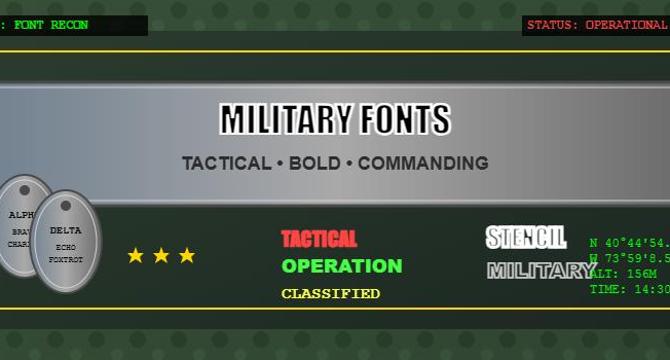
Military fonts are inspired by stenciled letters on military vehicles, offering a rugged and commanding aesthetic for branding and design projects.These fonts reflect utility, durability, and a sense of order, making them ideal for projects that require strength and reliability.Popular military font styles include classic stenciled looks, block letters, and distressed effects for a vintage feel.Fonts like "Military Poster" and "Stamped" convey discipline and authenticity with bold and worn appearance cues."D Day Stencil" and "Army Stamp" recreate historic military markings, while "Capture Smallz" maximizes impact in minimal space.Fonts like "Bronx Bystreets" and "Punishment" convey toughness and authority, with a streetwise and commanding presence."Wargate" and "Panfleta Stencil" evoke military strategy and grassroots movements, each with a distinct purpose and feel."Damage Inc" and "Grenade Stencil" suggest controlled destruction and explosive power, adding impact to designs."Hand Printing Press Eroded" and "Comando Valenciano" bring history and specialization to military typography, showcasing resilience and pride.With a variety of styles like "War Machine Stencil", "Stencil Style New", and "Shattered", military fonts offer a versatile approach to design.